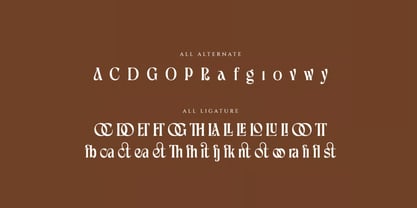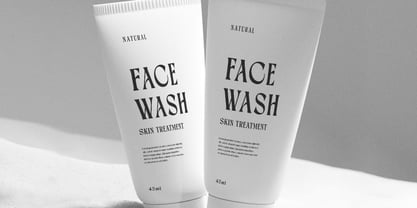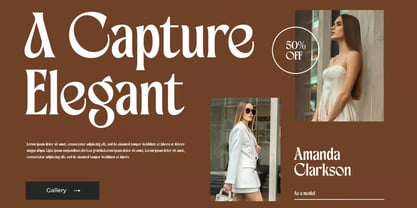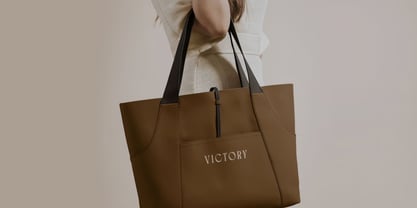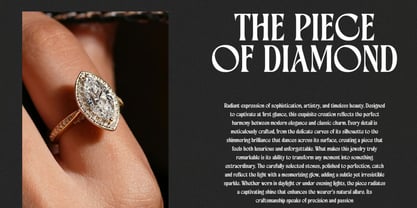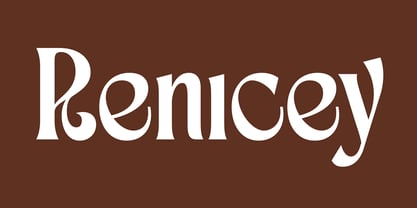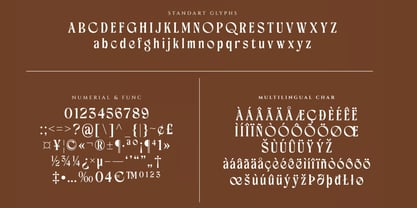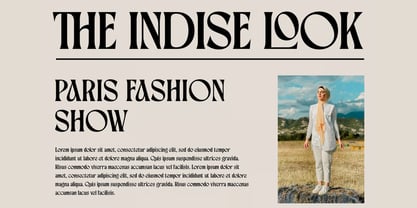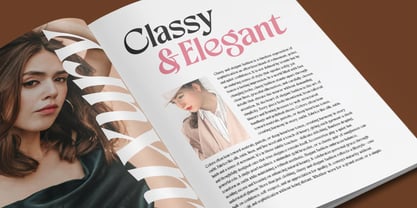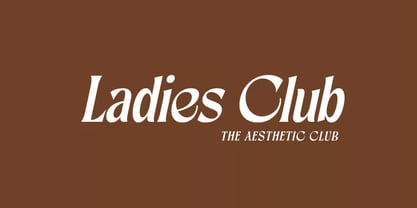
Renicey
Renicey is an elegant serif font that captures a timeless expression of sophistication, beautifully balancing classic elegance with modern refinement. Designed for creatives who appreciate polished and graceful typography, Renicey brings a luxurious and professional character to every composition.
With its refined serif structure and versatile styling, Renicey is an excellent choice for a wide variety of creative projects, from luxury logos and branding to wedding invitations, magazine covers, product packaging, social media graphics, photography, and advertising. Its elegant personality allows it to work beautifully across both sophisticated minimalist designs and more expressive editorial compositions.
Whether you're building a premium corporate identity, creating a fashion-inspired magazine layout, designing an elegant wedding invitation, or adding a refined touch to product packaging, Renicey helps transform ordinary typography into a memorable visual statement.
Key Features:
• Elegant Serif Design: A sophisticated typeface combining classic beauty with contemporary refinement.
• Regular & Italic Styles: Two versatile styles for dynamic and expressive typography.
• Standard Glyphs: A functional character set suitable for everyday creative projects.
• Stylish Alternates & Ligatures: Add personality and artistic flair to logos, headlines, and display typography.
• Numerals & Functional Characters: Essential characters for professional branding and design.
• Multilingual Support: Supports multilingual characters for international creative projects.
Perfect For:
• Luxury Logo & Branding: Create sophisticated and memorable brand identities.
• Wedding Invitations & Stationery: Add timeless elegance to invitations, menus, cards, and event materials.
• Magazine & Editorial Design: Perfect for magazine covers, headlines, titles, and premium layouts.
• Product Packaging & Labels: Give cosmetics, skincare, boutique products, and luxury goods an elegant appearance.
• Photography & Watermarks: Create stylish signatures and professional photography branding.
• Social Media Graphics: Enhance quotes, promotional posts, announcements, and lifestyle content.
• Corporate Branding: Build polished business identities, presentations, stationery, and marketing materials.
• Advertising & Printed Quotes: Ideal for elegant promotional campaigns and inspirational typography.
• Special Events: Perfect for invitations, signage, menus, and event branding.
Elevate your creative projects with Renicey—an elegant timeless serif font that beautifully merges classic sophistication with modern refinement. With Regular and Italic styles, stylish alternates, ligatures, multilingual support, and professional software compatibility, Renicey is the perfect choice for luxury branding, wedding designs, editorial layouts, packaging, photography, social media, corporate identity, and any project that deserves an elegant touch.